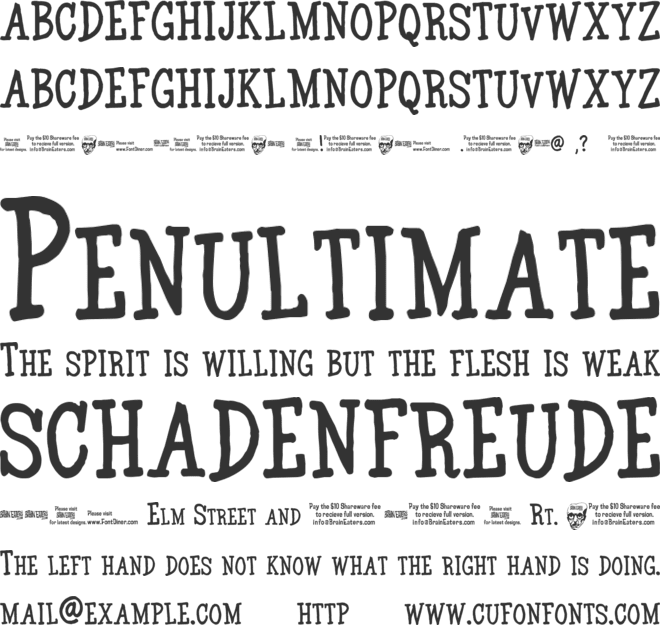
BE Marker Font
BE Marker Serif/Sans © 1997-98 Brain Eaters Font Company.Shareware: $10.00This font is from Brain Eaters Font Co. Fonts based on B-Movies, Horror, Sci-Fi, Exploitation and other trash. If you've ever used a marker before to paint your toenails, or apply your eyeliner then you'll recognize this font as being drawn with a felt tip marker! Serifs have more fun. A Sans Serif version is also FREE with your order!The BE Marker Serif font is SHAREware. BE Marker Serif_SW is the incomplete version. Once you send in your $10 Shareware fee, you will receive a more complete, version of the font which includes numbers, more punctuation, and the real lower case characters. **Also when you pay the shareware fee I'll send the full versions of BOTH the SERIF and the SANS to you. ThatÕs TWO complete FONTS for $10.00!